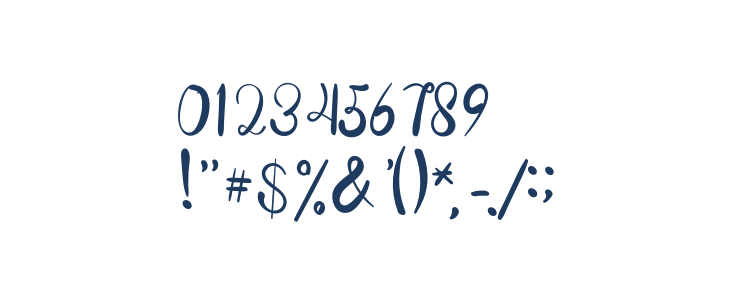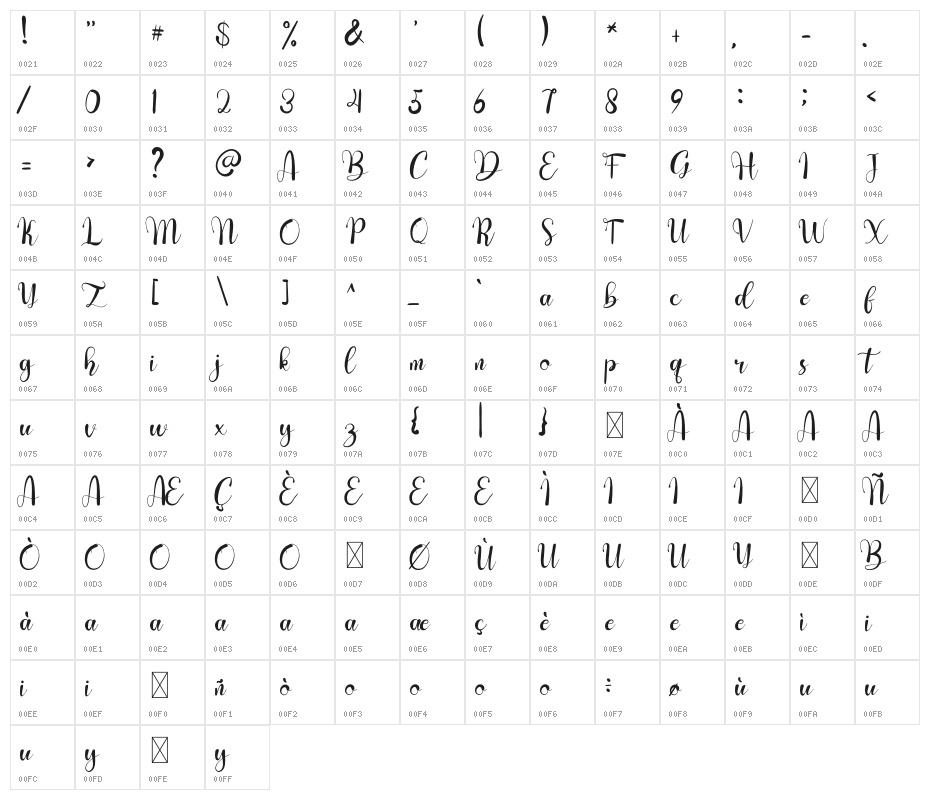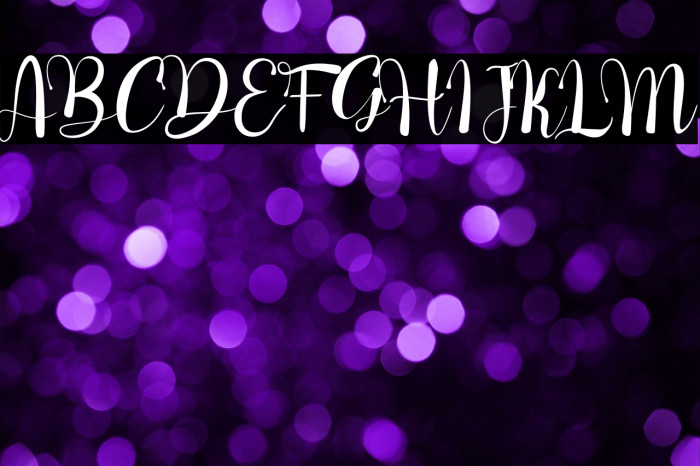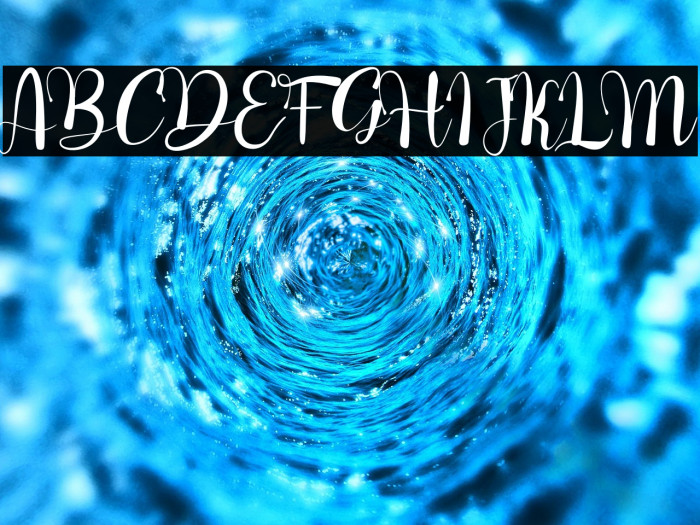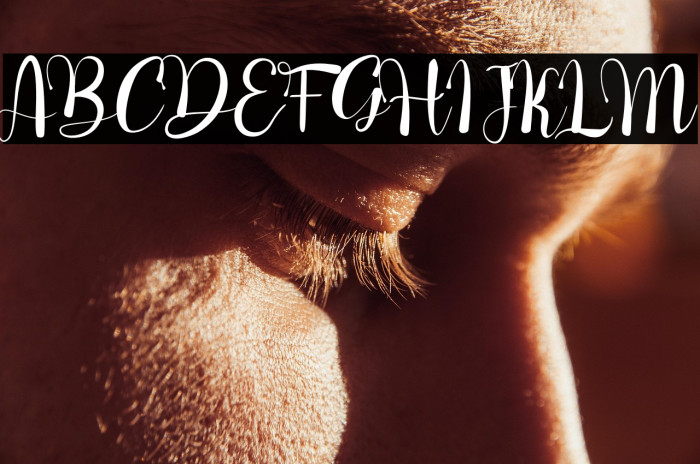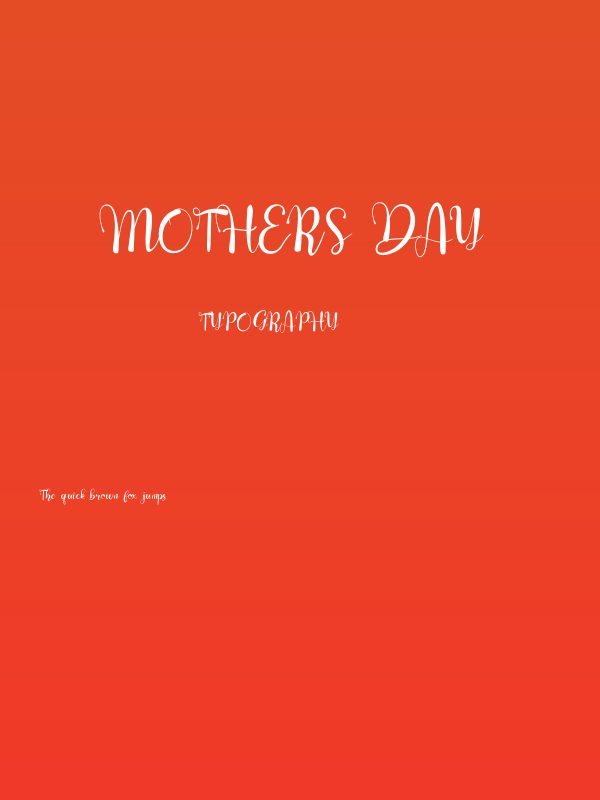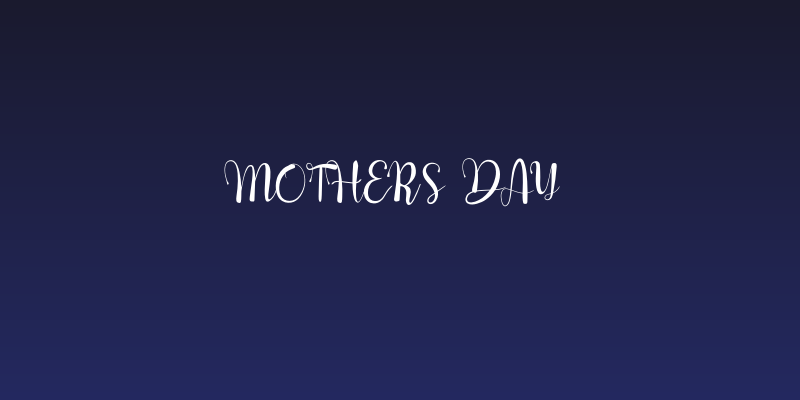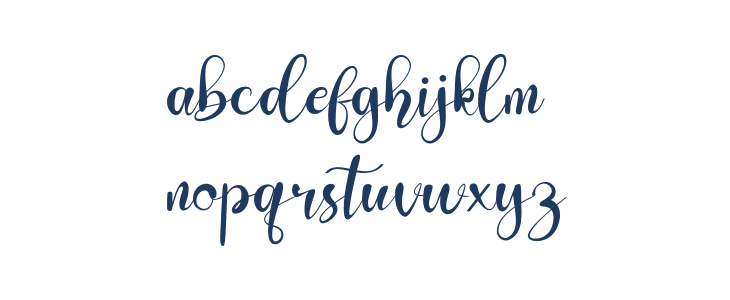
Mothers Day Font
Mothers Day Description
This font exudes a graceful and elegant script style, characterized by its flowing, cursive letterforms. Each character is crafted with a sense of fluidity and movement, featuring smooth curves and delicate loops. The uppercase letters are particularly ornate, with some featuring extended flourishes that add a touch of sophistication. The lowercase letters maintain a consistent style, ensuring readability while retaining an artistic flair. The numbers and special characters are designed to complement the overall aesthetic, making this font versatile for various applications. Its high contrast in stroke thickness enhances its visual appeal, making it suitable for decorative purposes.